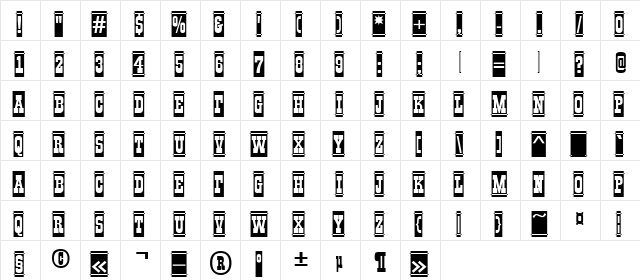
a_GildiaDcCm Bold
Design Context for a_GildiaDcCm Typeface
a_GildiaDcCm takes a measured approach to typography — its balanced proportions and neutral character make it a reliable workhorse for both digital and print work. The heavy weight commands attention and anchors typographic hierarchies.